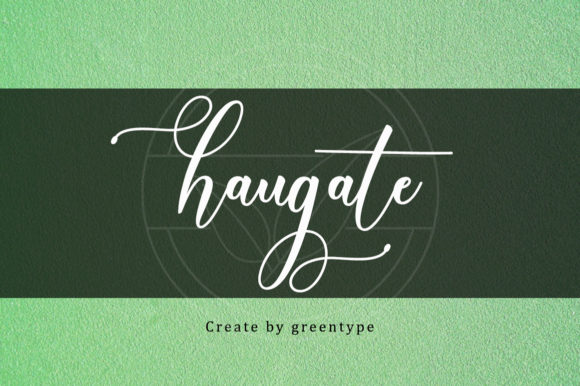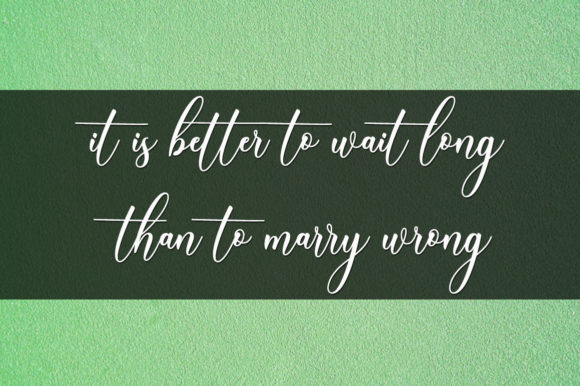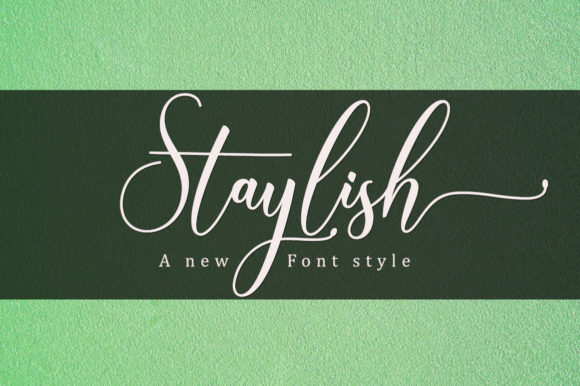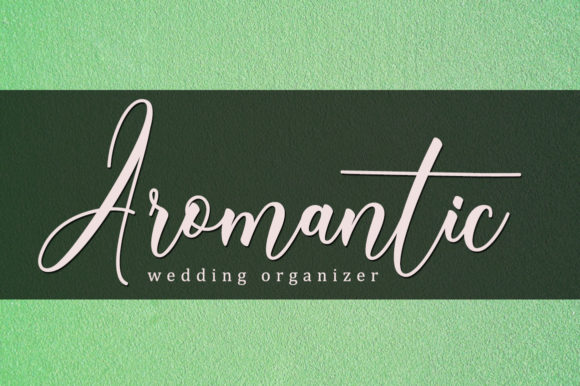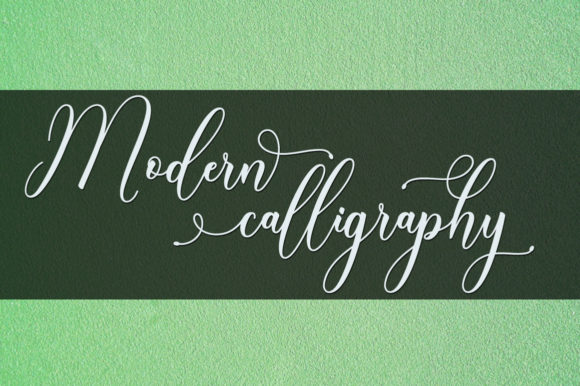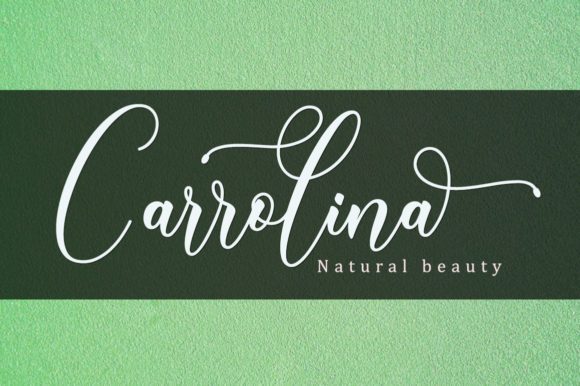
Introducing Calista Font: Elevate Your Designs with Elegance and Sophistication
Are you looking for a font that exudes elegance, sophistication, and a touch of modernity? Look no further than Calista Font, a beautiful handwritten font that is sure to take your designs to the next level. With its flowing lines, gorgeous glyphs, and stunning alternates, Calista is the perfect choice for designers and crafters who want to add a touch of class to their projects.
What Makes Calista Font So Special?
Calista Font is a PUA encoded font, which means that you can access all of the glyphs and swashes with ease. This makes it incredibly versatile and easy to use, even for those who are new to font design. The font features a varying baseline, smooth lines, and gorgeous glyphs that are sure to impress. Whether you’re working on a branding project, a wedding invitation, or a packaging design, Calista Font is the perfect choice.
Classy Calligraphic Influences with a Modern Twist
One of the things that sets Calista Font apart from other fonts is its classy calligraphic influences. The font maintains a sense of tradition and elegance, while still feeling contemporary and fresh. This makes it perfect for designers who want to create designs that are both timeless and modern. Whether you’re looking to create a design that feels luxurious and high-end, or one that is playful and whimsical, Calista Font is the perfect choice.
Features and Benefits of Calista Font
So, what are the features and benefits of Calista Font? Here are just a few:
• PUA encoded: Easy access to all glyphs and swashes
• Varying baseline: Creates a sense of movement and fluidity
• Smooth lines: Perfect for creating elegant and sophisticated designs
• Gorgeous glyphs: Add a touch of whimsy and personality to your designs
• Stunning alternates: Give you even more options for customizing your designs
• Classy calligraphic influences: Add a touch of tradition and elegance to your designs
• Contemporary and fresh: Perfect for creating modern and trendy designs
How to Use Calista Font in Your Designs
So, how can you use Calista Font in your designs? Here are a few ideas:
• Branding projects: Use Calista Font to create a logo or wordmark that exudes elegance and sophistication
• Wedding invitations: Add a touch of romance and whimsy to your wedding invitations with Calista Font
• Packaging design: Use Calista Font to create labels, packaging, and other materials that feel luxurious and high-end
• Stationery and paper goods: Create beautiful stationery, notebooks, and other paper goods with Calista Font
In conclusion, Calista Font is a beautiful and elegant handwritten font that is sure to elevate your designs to the next level. With its flowing lines, gorgeous glyphs, and stunning alternates, Calista is the perfect choice for designers and crafters who want to add a touch of class to their projects. Whether you’re working on a branding project, a wedding invitation, or a packaging design, Calista Font is the perfect choice. So why wait? Fall in love with Calista Font and bring your projects to the highest levels!